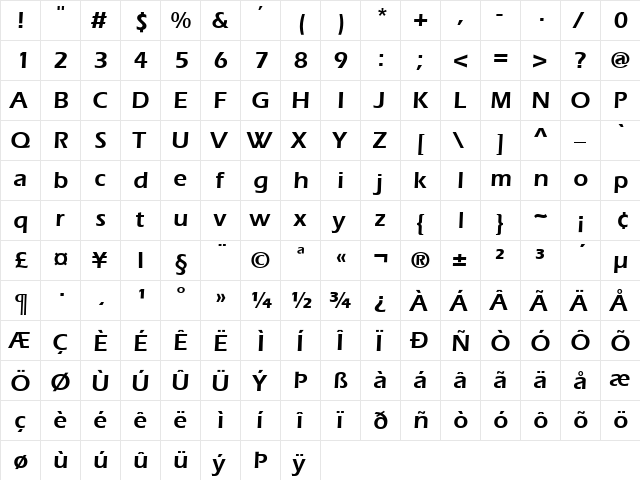
EerieBlack Regular
Design Context for EerieBlack Typeface
EerieBlack takes a measured approach to typography — its balanced proportions and neutral character make it a reliable workhorse for both digital and print work.